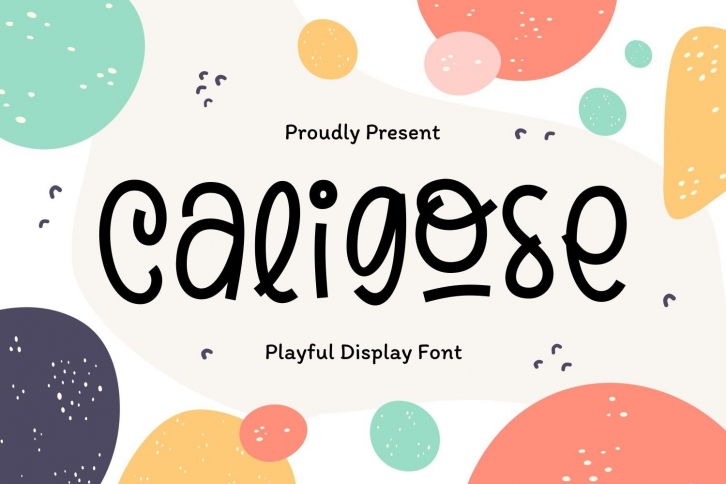
Caligose is a trendy and unique font with an authentic style. It was designed by Design Bundles Store and it's a great choice for creative people who need such a font. It was released on July 14, 2020 and the file size is 8.52 MB. Caligose will add an organic vibe to any design idea!